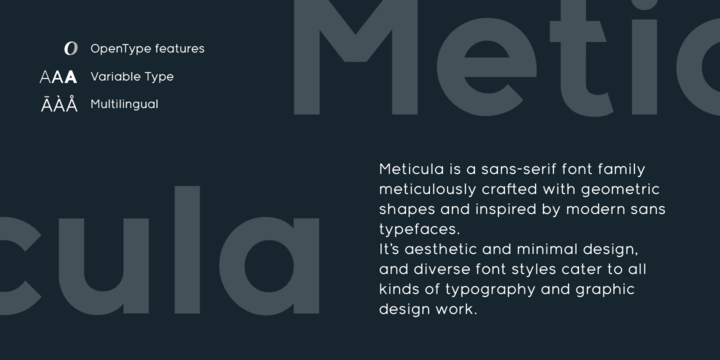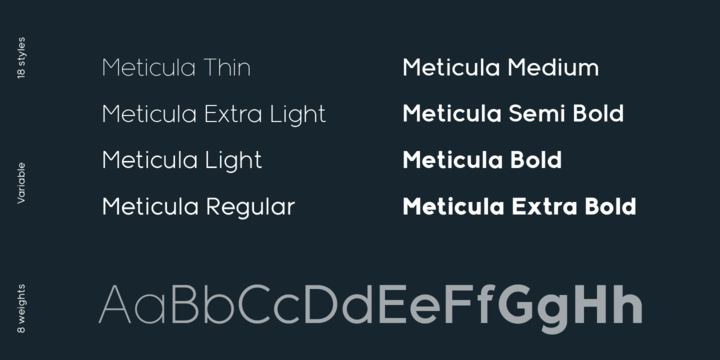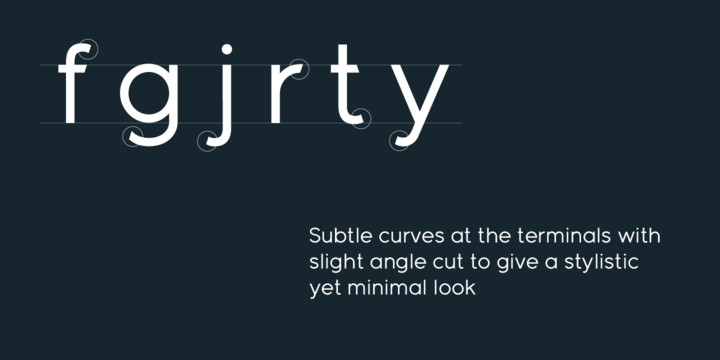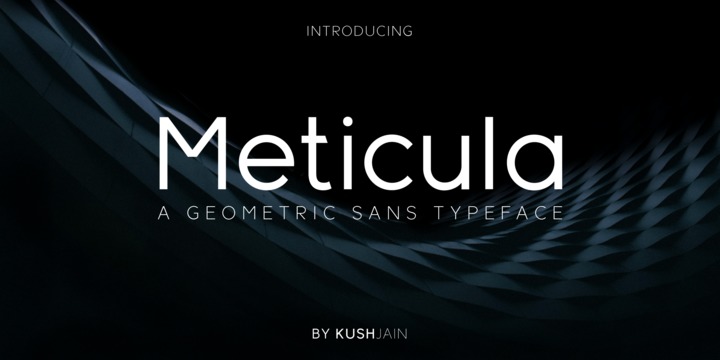
Meticula Font Family
This is a  sans serif font family coming in 18 fonts. If you are looking for Strong letters with a ton of unique Ligatures and style to choose, it is the perfect fit. It’s a memorable, fashionable, strong and elegant typeface. Introducing Meticula. Meticula Font Family is a sans-serif font family meticulously crafted with geometric shapes and inspired by modern sans typefaces. Comes with 8 uprights and an outline font with italic counterparts.
It’s aesthetic, minimal design and diverse font styles cater to all kinds of typography and graphic design work. Supports major Latin based languages, advanced open type features, full set of ligatures, punctuation and major currency symbols.